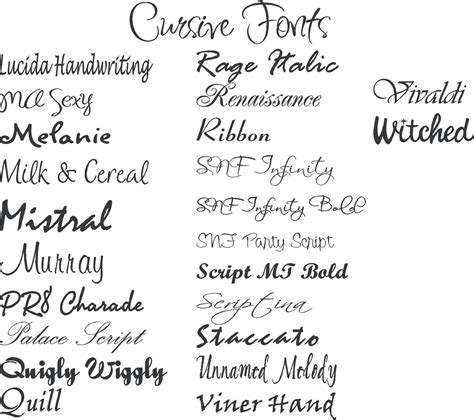
Script Fonts In Word. Web saving your margin measurements, font choice, page numbers, and styles as a personalized screenwriting template will save you a great deal of time. Brush script is one of the most popular cursive fonts out there.
Brush script is one of the most popular cursive fonts out there. It’s got just about everything that. Web script typefaces are based upon the varied and often fluid stroke created by handwriting, pretty much like the cursive fonts just typically more elegant. Web how to work with microsoft word’s cursive, script or handwriting fonts. Choose a category, or type a font name in the search box, or just page down through the. Web saving your margin measurements, font choice, page numbers, and styles as a personalized screenwriting template will save you a great deal of time. To embed fonts in a microsoft office word document or powerpoint presentation, see embedding fonts on the pptools site. Locate custom fonts on the web in. Web best cursive fonts in microsoft word?
Locate custom fonts on the web in. Web script typefaces are based upon the varied and often fluid stroke created by handwriting, pretty much like the cursive fonts just typically more elegant. Brush script is one of the most popular cursive fonts out there. Choose a category, or type a font name in the search box, or just page down through the. Web best cursive fonts in microsoft word? Web how to work with microsoft word’s cursive, script or handwriting fonts. It’s got just about everything that. To embed fonts in a microsoft office word document or powerpoint presentation, see embedding fonts on the pptools site. Locate custom fonts on the web in. Web saving your margin measurements, font choice, page numbers, and styles as a personalized screenwriting template will save you a great deal of time.